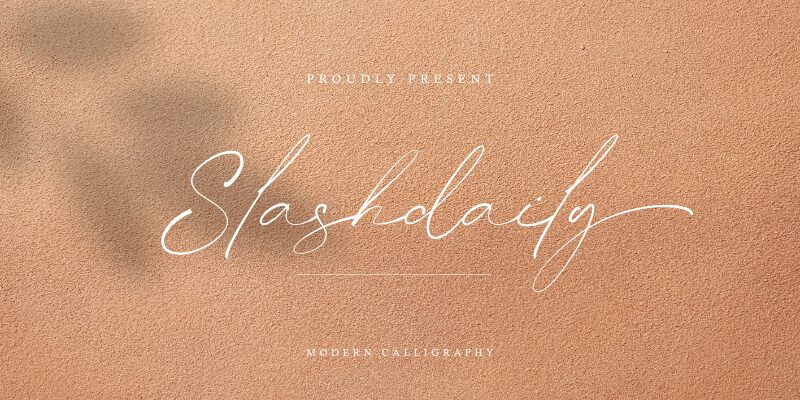
Slashdaily
Slashdaily, the ultra-light handwritten font designed by Halymunt Studio, adds a touch of personality to any project. Its playful curves and unique stroke variation make it perfect for branding, social media graphics, and editorial design. Whether you're creating a logo for a trendy startup or designing a quirky book cover, Slashdaily is the perfect choice to capture attention and convey creativity. With its delicate strokes and signature style, this font is sure to make your designs stand out from the crowd.